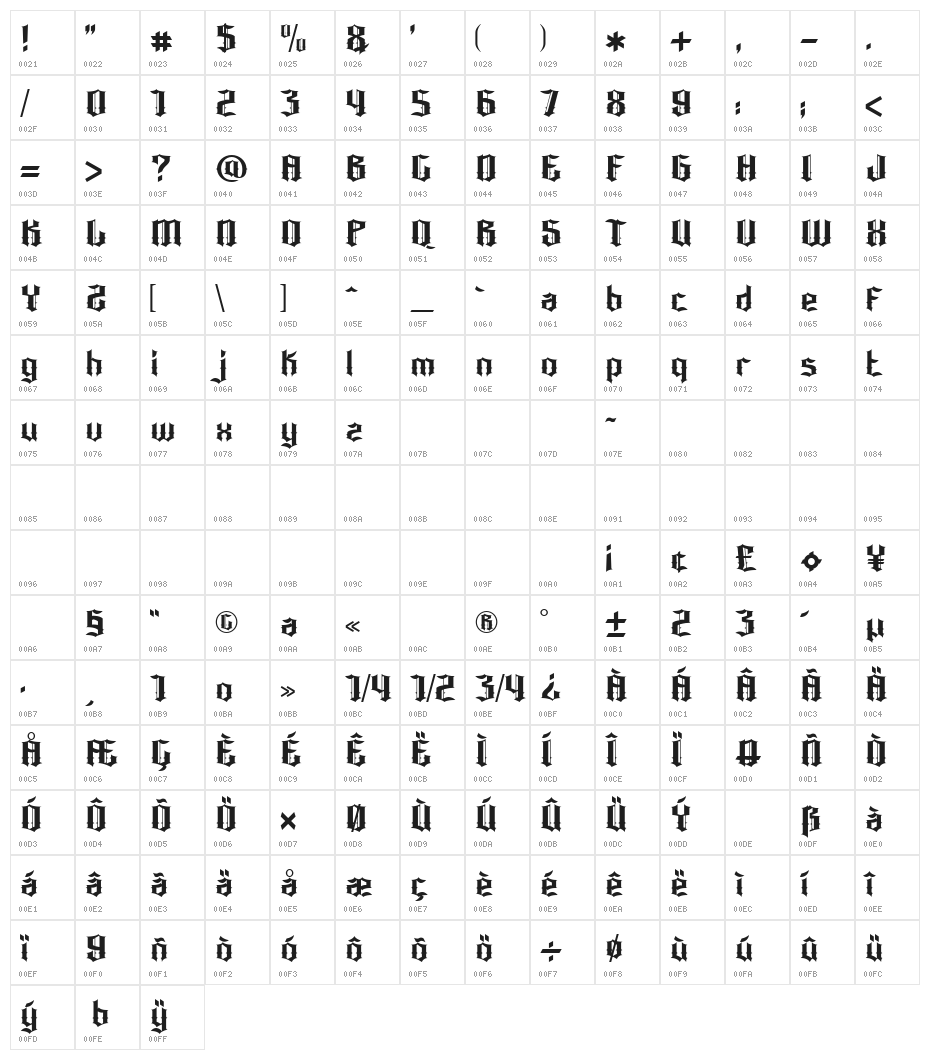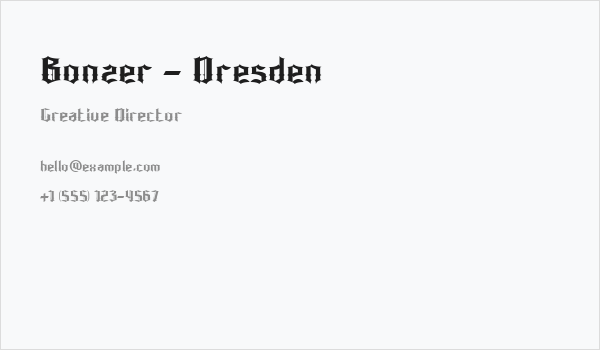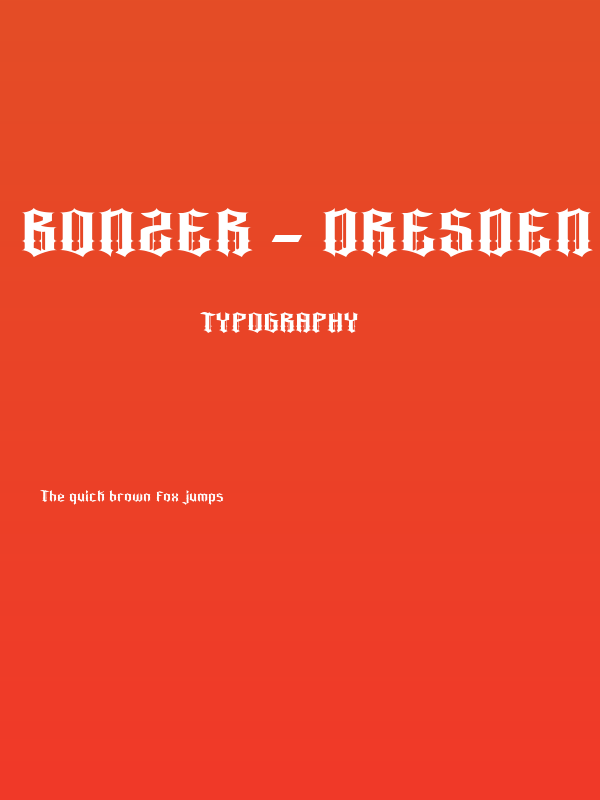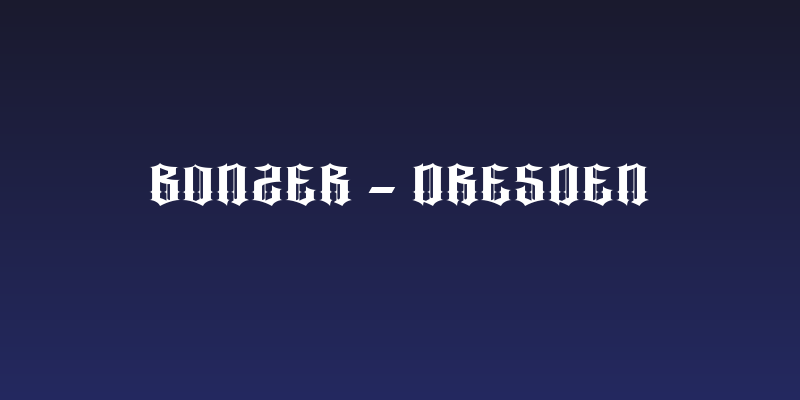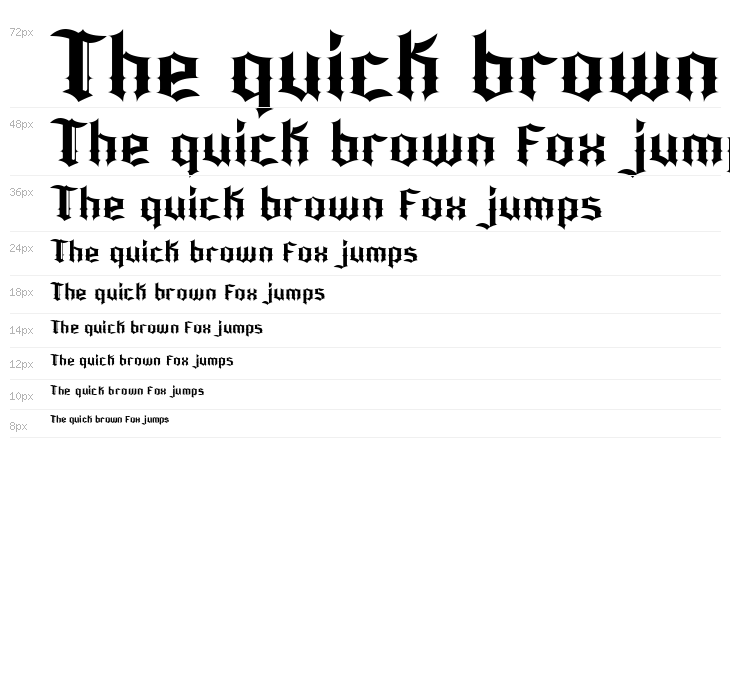
Bonzer - Dresden Font
Bonzer - Dresden Description
This font features a bold and intricate design reminiscent of traditional Blackletter styles. The characters are highly decorative, with sharp angles and pointed edges that create a dramatic and historical appearance. Each letter is crafted with a high level of detail, making it stand out with its unique and ornate structure. The uppercase and lowercase letters maintain a consistent style, while the numbers and special characters complement the overall aesthetic. This font's striking appearance makes it ideal for projects that require a touch of elegance and historical flair.
| Use Case | Logos, Headlines, Decorative purposes |
| Proposed Projects | Suitable for historical documents, event posters, book covers, or branding that requires a classic and dramatic touch. |